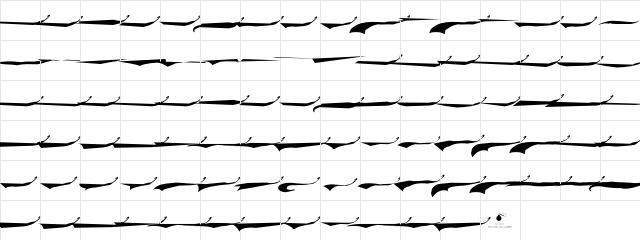
LHF Ballpark Swashes Regular
| Designer | Tom Kennedy |
Design Context for LHF Ballpark Swashes Typeface
LHF Ballpark Swashes brings a calligraphic fluidity to the page — its connecting strokes and expressive curves give it an unmistakably human quality.
Font Pairing: Combine LHF Ballpark Swashes with a simple geometric sans for maximum contrast — the tension between flowing curves and clean structure is a classic typographic pairing.
Pro Tip: Use LHF Ballpark Swashes for short runs of text — names, titles, or taglines. Extended body copy in script faces tires the eye quickly.